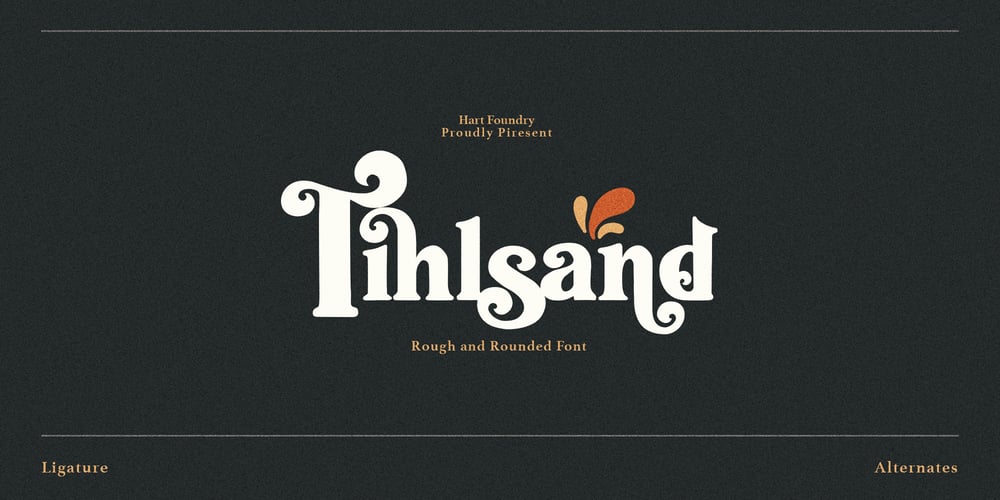
Tihlsand Font Family was designed by Muhammad Ardiansyah and published by Hart Foundry. Tihlsand contains 1 styles and family package options. Introducing a new font from Hart Foundry, Tihlsand.This rounded and rough font are made with carefully, so it look good in pair, this font are also good for Logotype, Branding or even a quotes. With this neutral font are also good for you to make a modern or vintage design, With a bunch of an alternate and ligature you can make a good combination for your design. What’s Included:-Character set A-Z -Uppercase & Lowercase -Numerals & Punctuation -Multilingual -Some Ligature & Stylistic alternates -Works on PC & MacThere is the details about the font, if there any other question about this font. Do not hesitate to let me know… Thanks